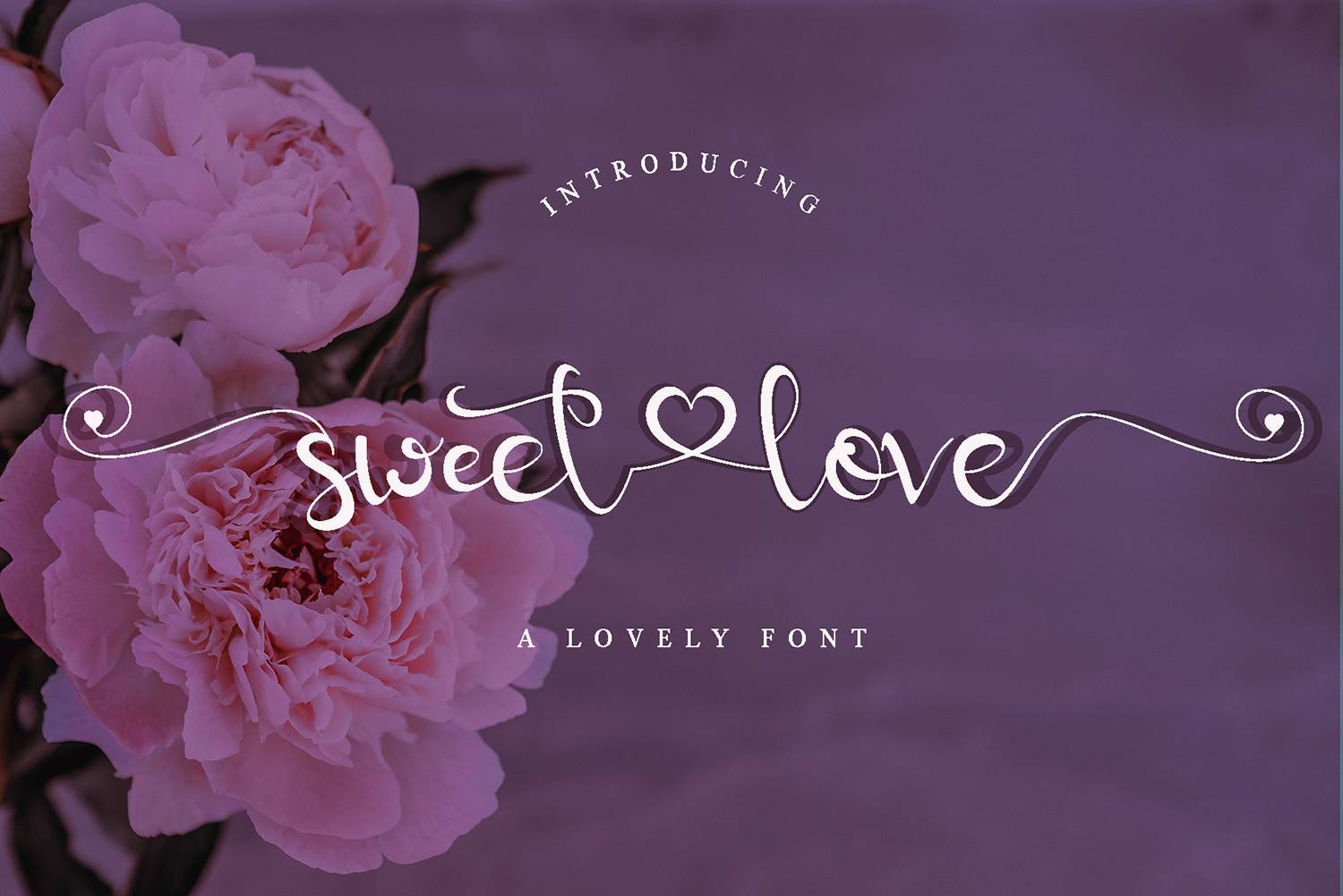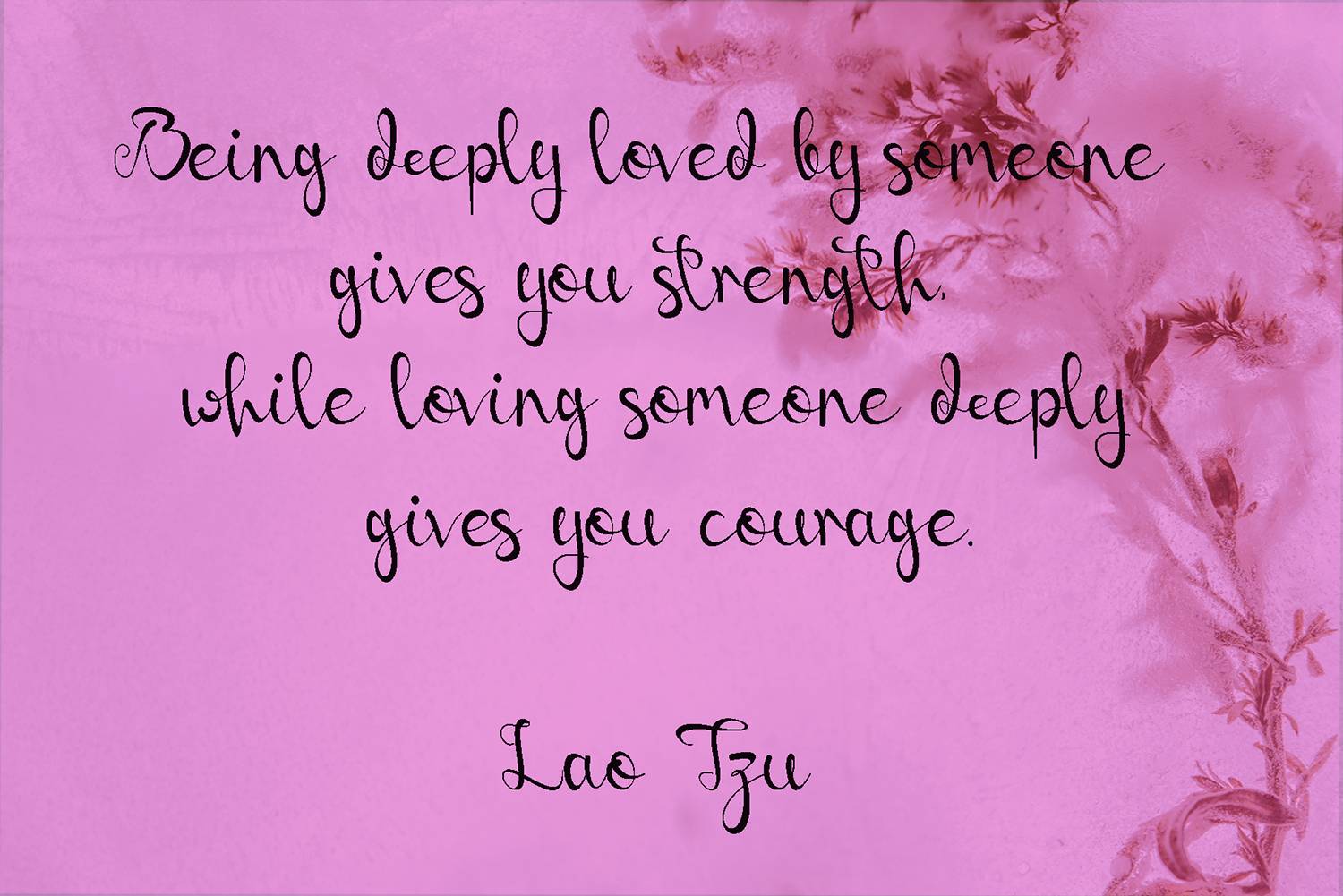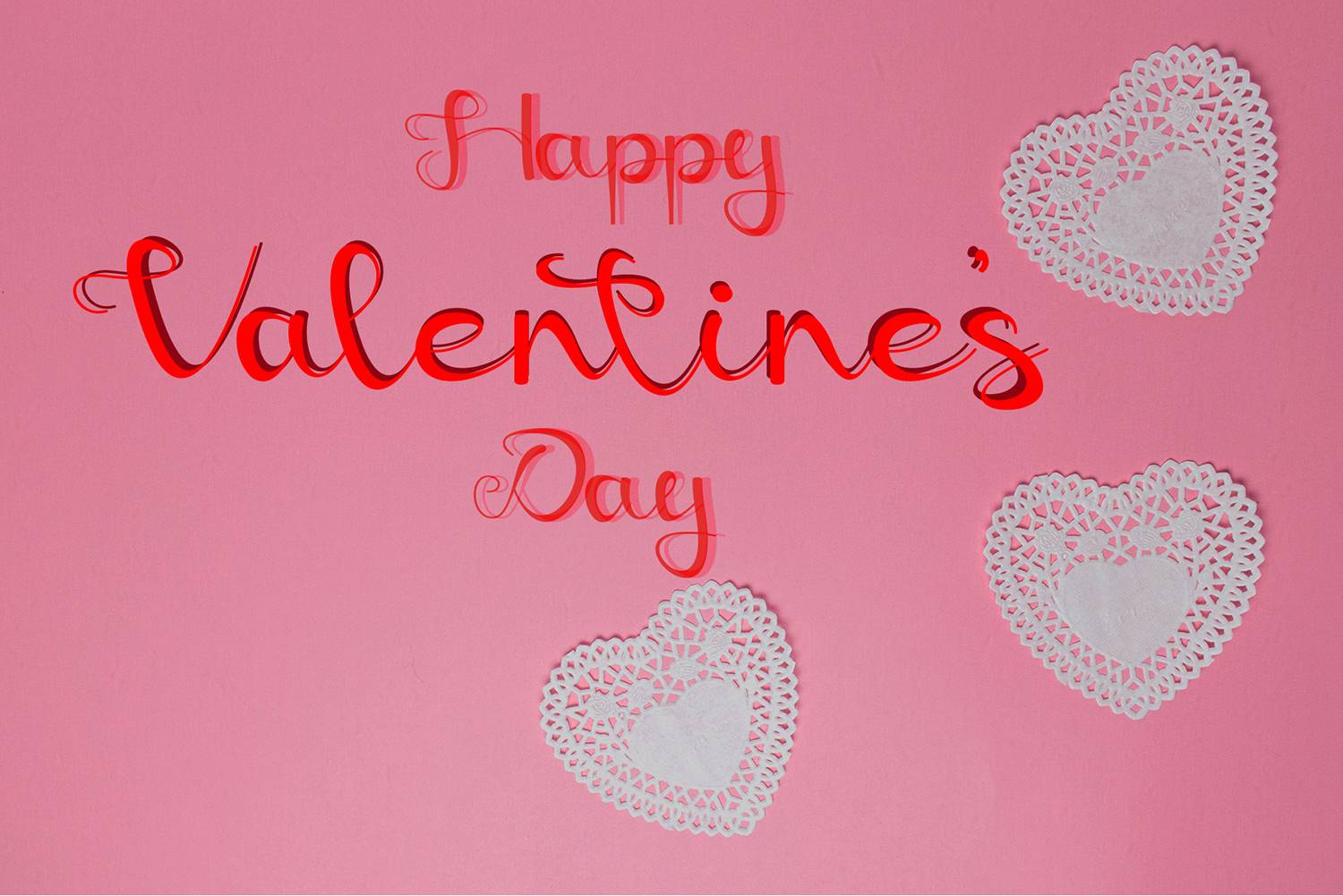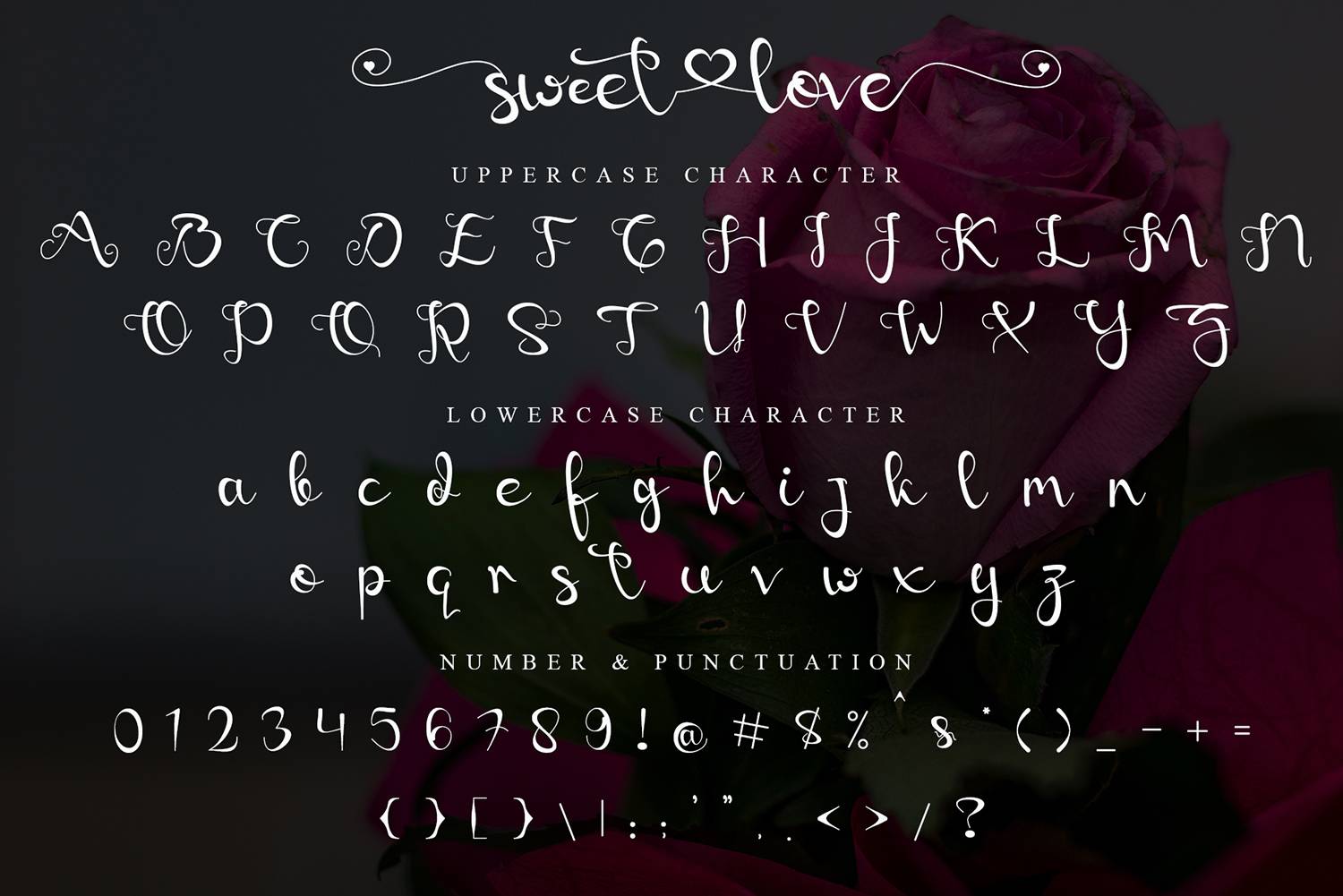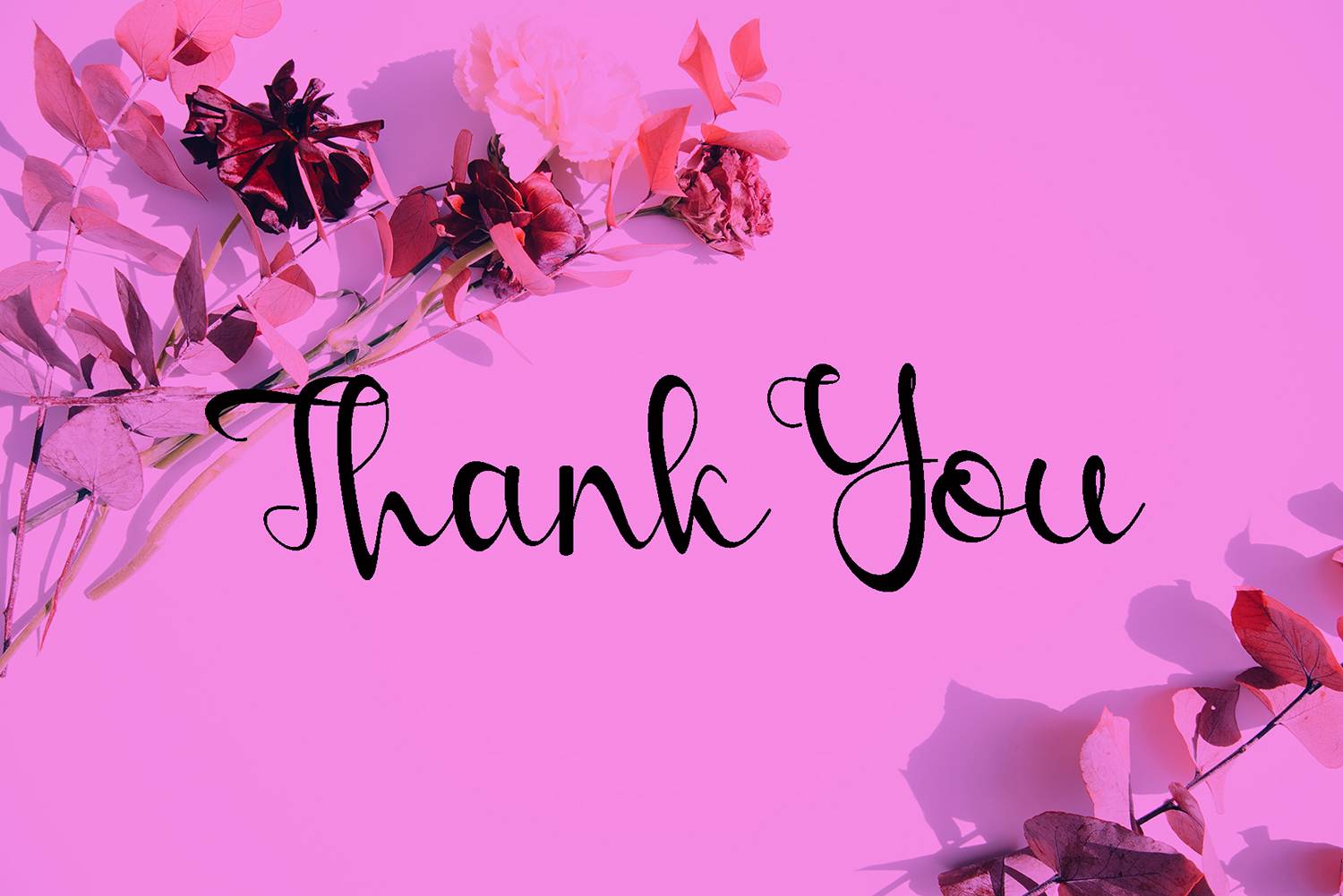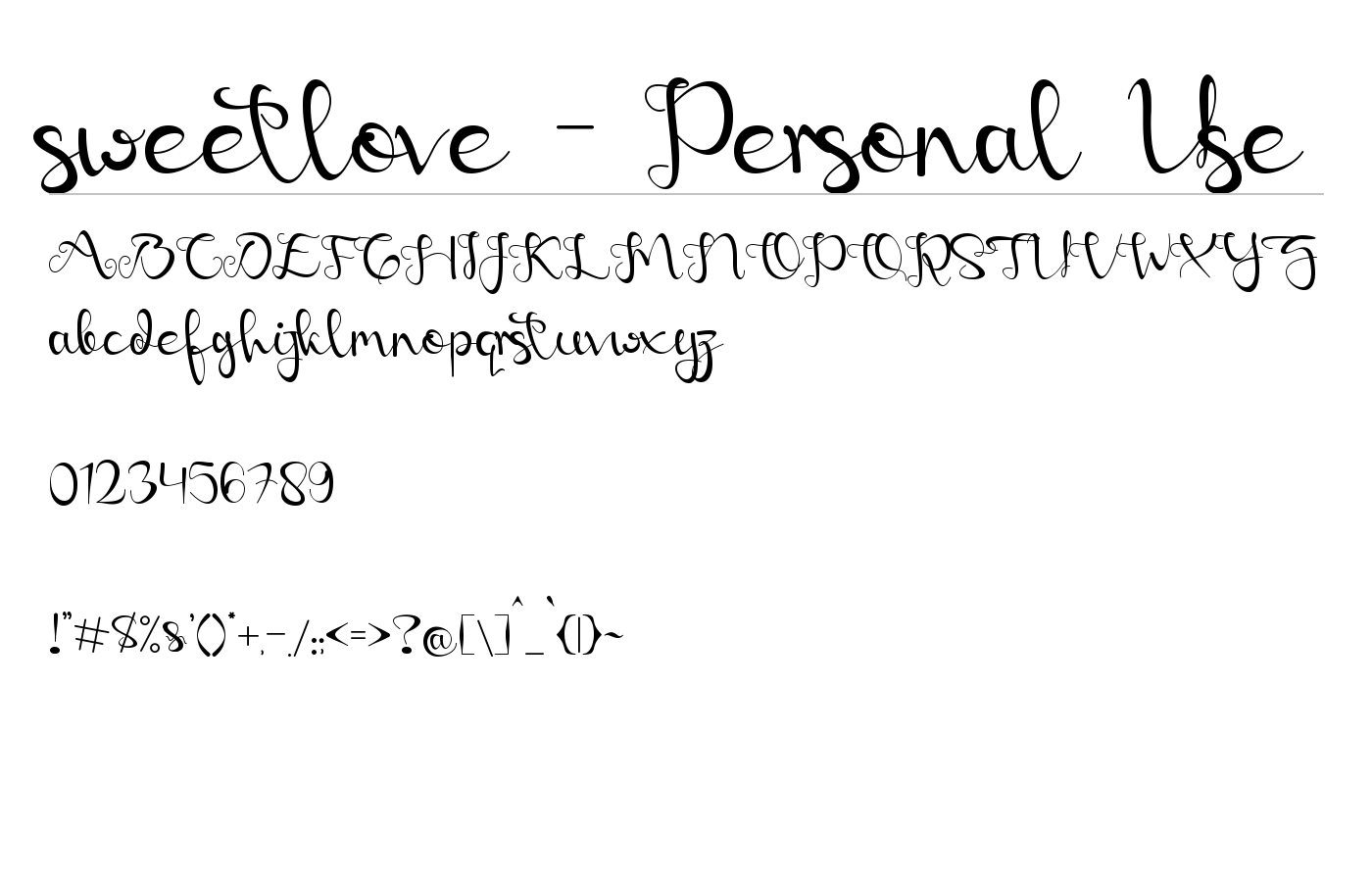
Sweetlove is a delicate and playful script font featuring elegant, flowing letterforms with charming swirls and loops that create a handcrafted, whimsical feel. Its thin strokes and distinctive curls convey warmth and creativity, making it perfect for personal projects, invitations, or branding that seeks a romantic and friendly touch. This font shines in designs where a light, decorative style is desired, especially for headlines and logos that want to express a sense of sweet, artistic flair.
Sweetlove Font
About Sweetlove Font
| Font family | Sweetlove Font |
| Release date | 2020-12-07 |
| Designer | ArkristLetter |